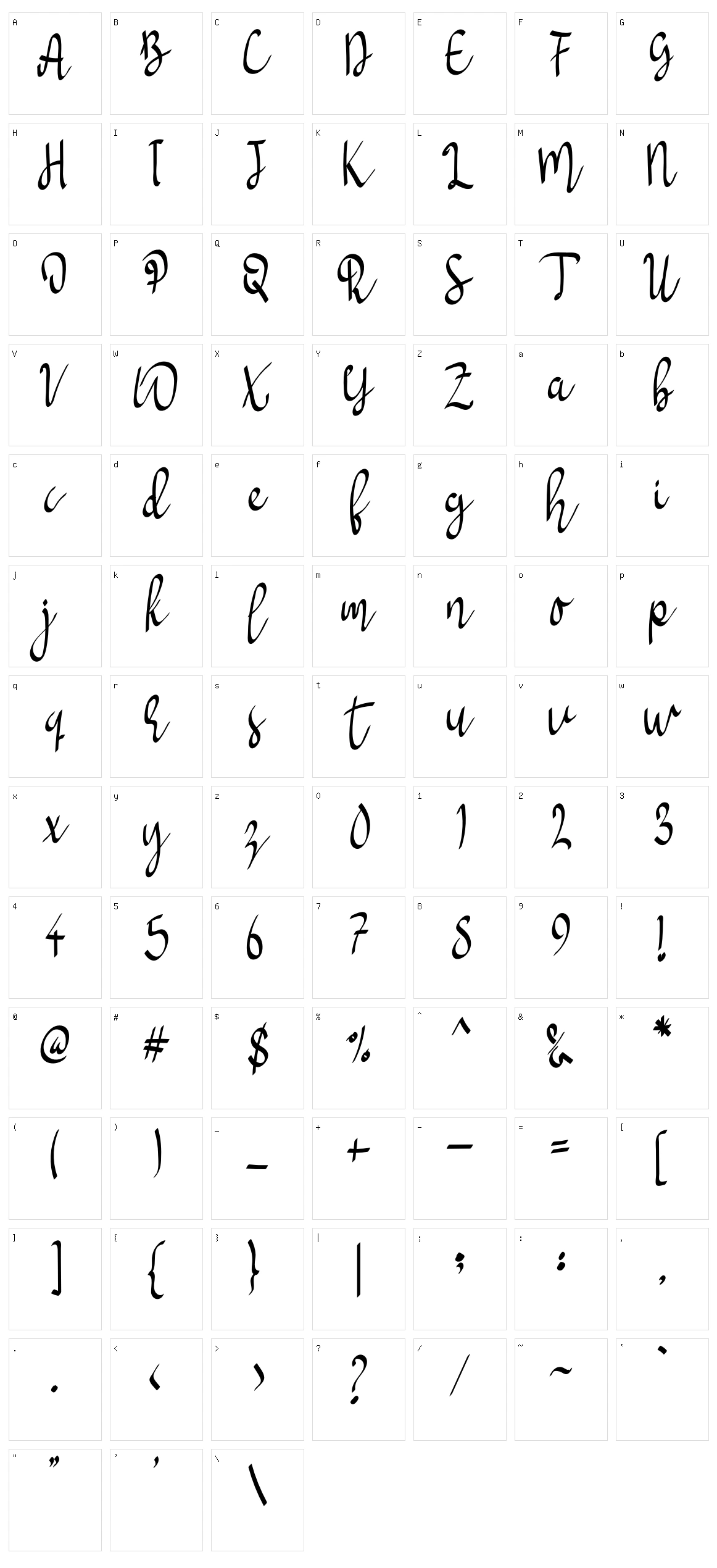
The free font Socialita is carefully designed by Inermedia Studio, showcasing a thoughtful balance of creativity and usability and falls under the Script font style. When you download the ZIP file, it contains only 24.52 KB of font files, making it lightweight and quick to download. Please review the license details below to understand permitted usage and distribution rights. If license information is not available, we recommend using this font for personal projects only or contacting the author directly for commercial usage permissions.